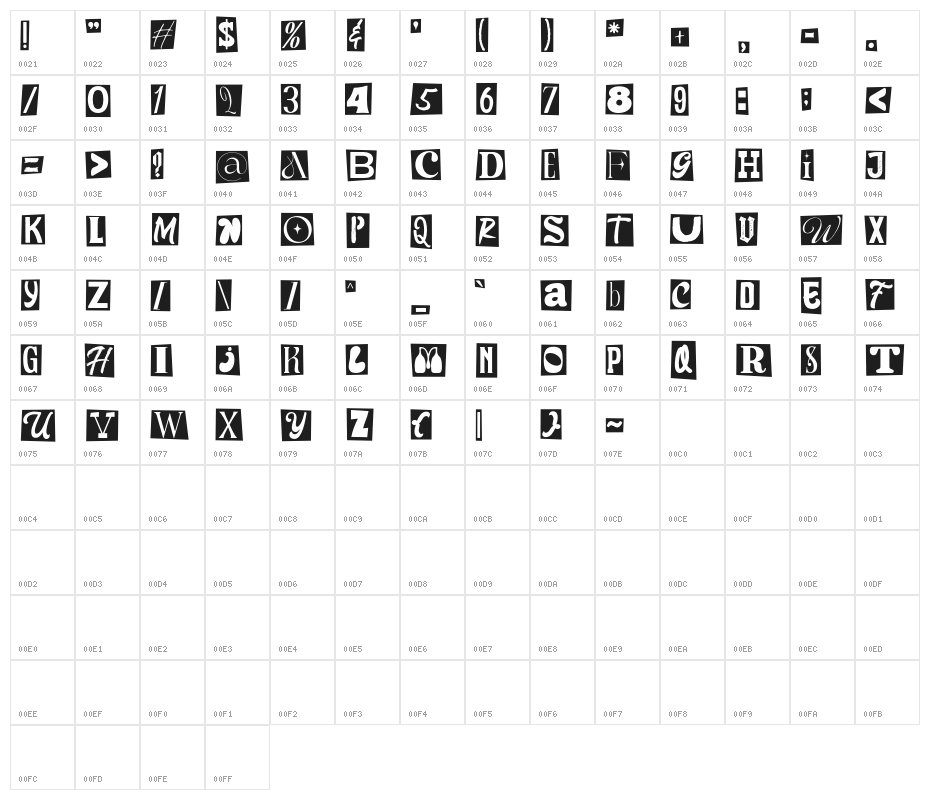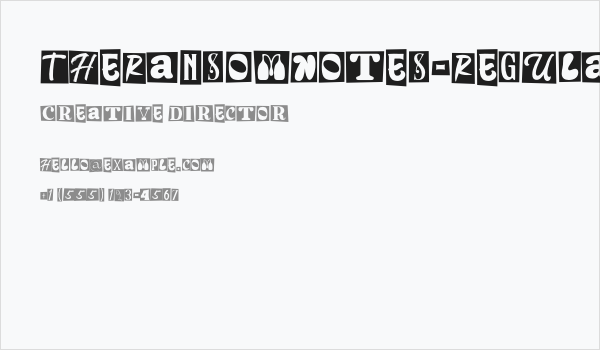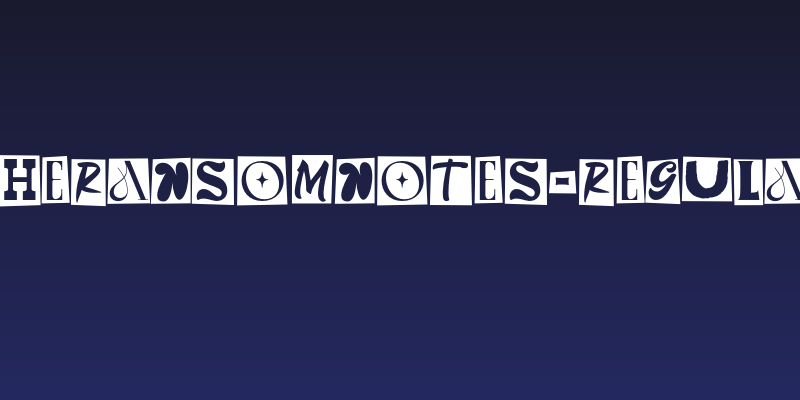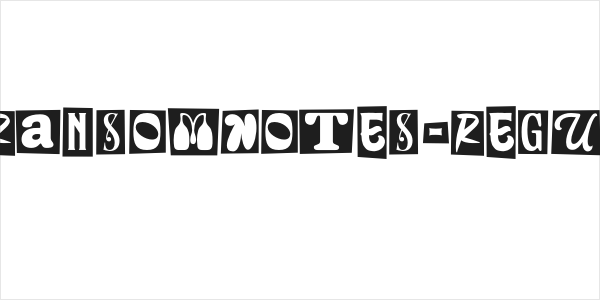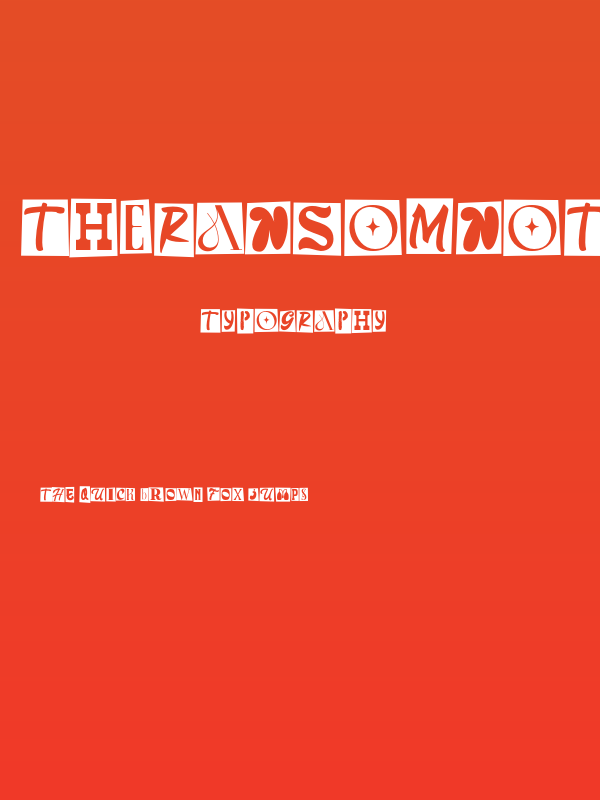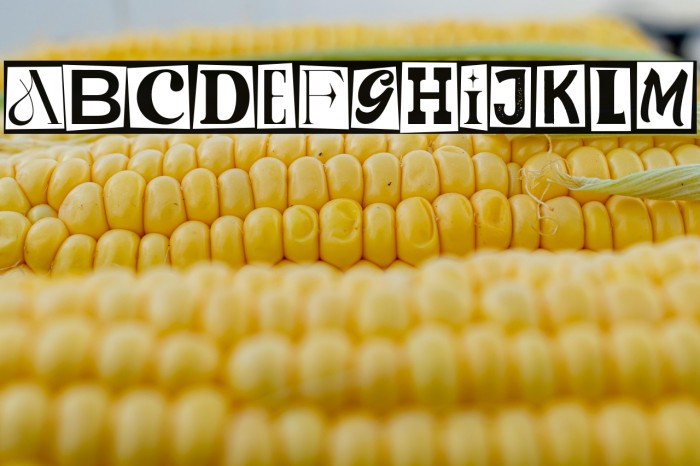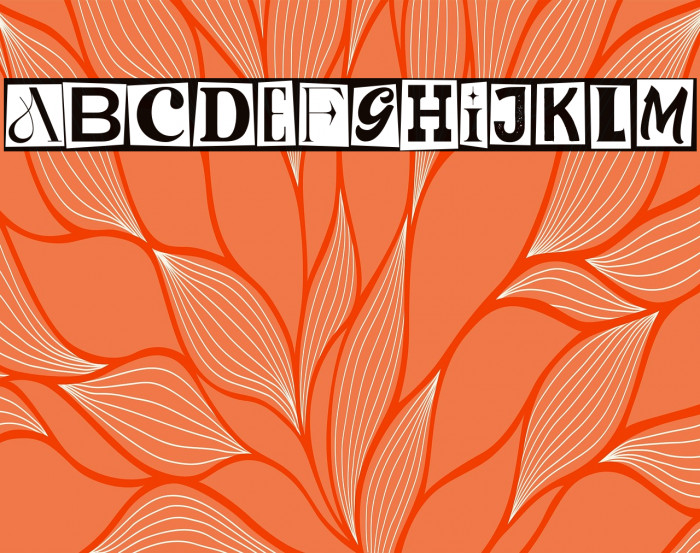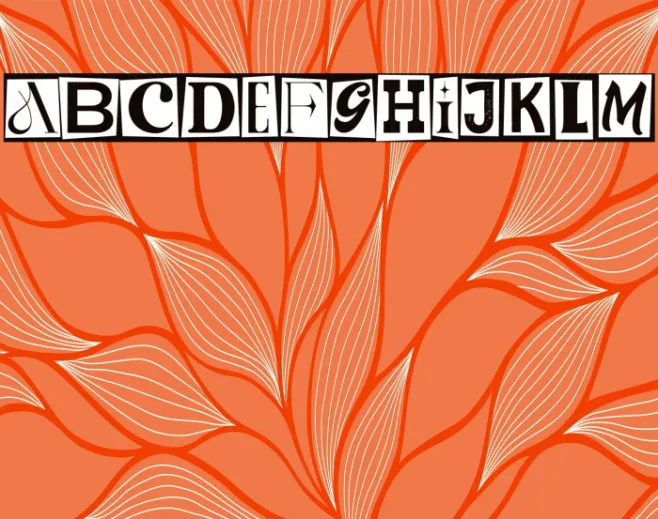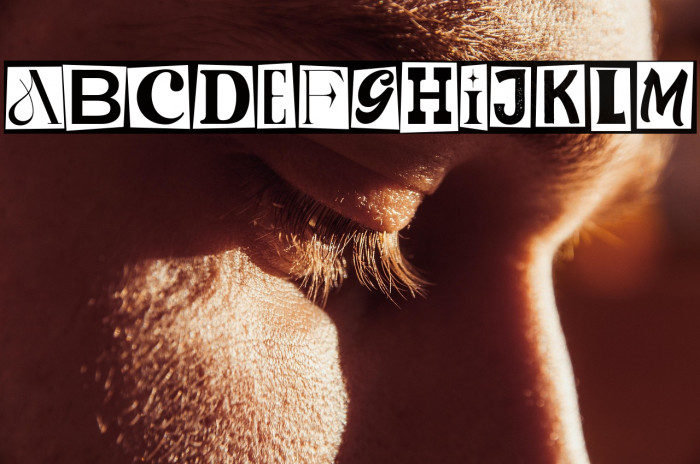
TheRansomNotes-Regular Font
This font is a playful and eclectic typeface that mimics the style of letters cut out from magazines or newspapers, often associated with ransom notes. Each character is uniquely designed with varying shapes and sizes, creating a collage-like appearance. The letters are set against a black background, enhancing their bold and striking presence. The font features a mix of serif and sans-serif elements, with some characters having exaggerated curves or angles, adding to its quirky and unconventional look. It is highly decorative and captures attention with its distinct and chaotic style.
| Proposed Projects | This font is perfect for creative projects such as posters, album covers, or any design that requires a bold, eye-catching headline. It can also be used in themed events or escape room branding to evoke a sense of mystery and intrigue. |